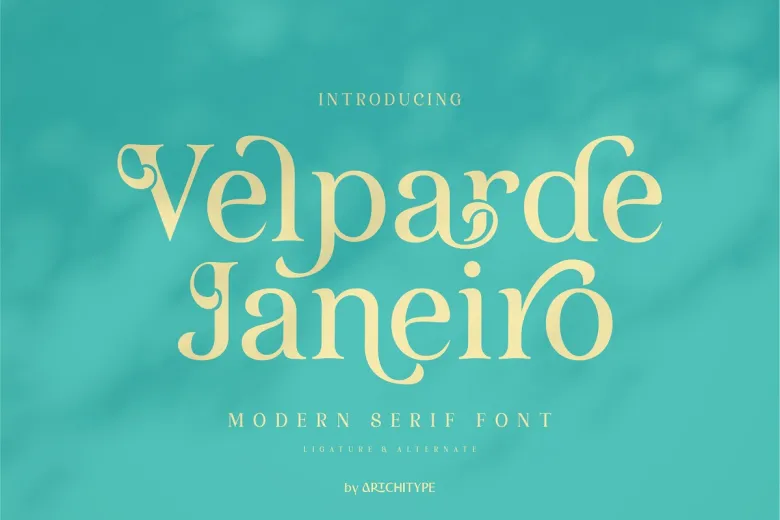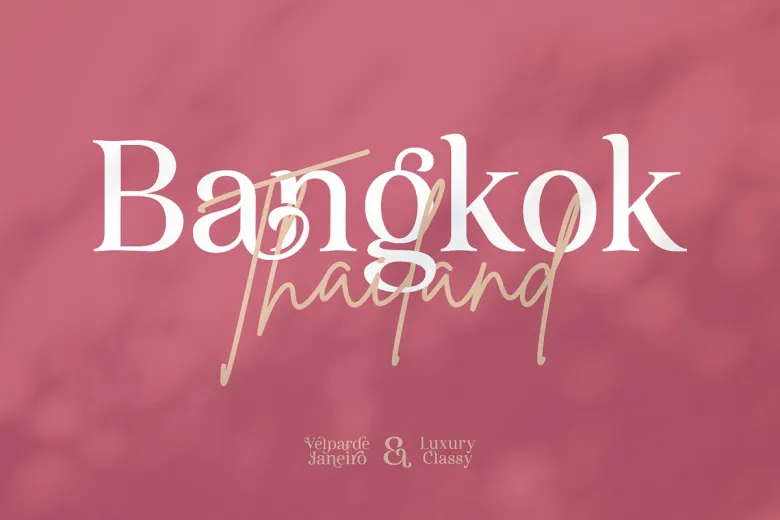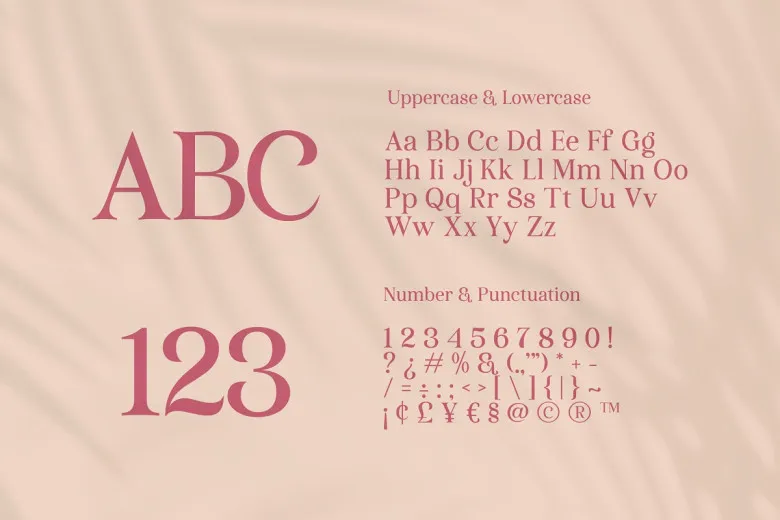
Velparde Janeiro Font
Velparde Janeiro is an elegant and sophisticated display serif font that exudes timeless charm. With over 270 characters, it offers a comprehensive set of uppercase, lowercase, multilingual alternatives, punctuation marks, and other commonly used characters. This versatility makes Velparde Janeiro an ideal choice for a wide range of creative projects, from refined branding to stylish editorial layouts.
Whether you’re designing logos, crafting social media posts, or creating product packaging, Velparde Janeiro provides a unique blend of class and functionality. Its high-quality letterforms lend a professional finish to your work, ensuring it stands out while maintaining a polished appearance. The font’s distinctive style ensures it remains memorable across various design applications.
Velparde Janeiro’s adaptability shines in both digital and print mediums, making it suitable for everything from website headers to luxurious stationery. Its carefully crafted serifs and elegant proportions make it perfect for projects that demand both sophistication and clarity. Use it to enhance visual storytelling and captivate your audience with its timeless appeal.